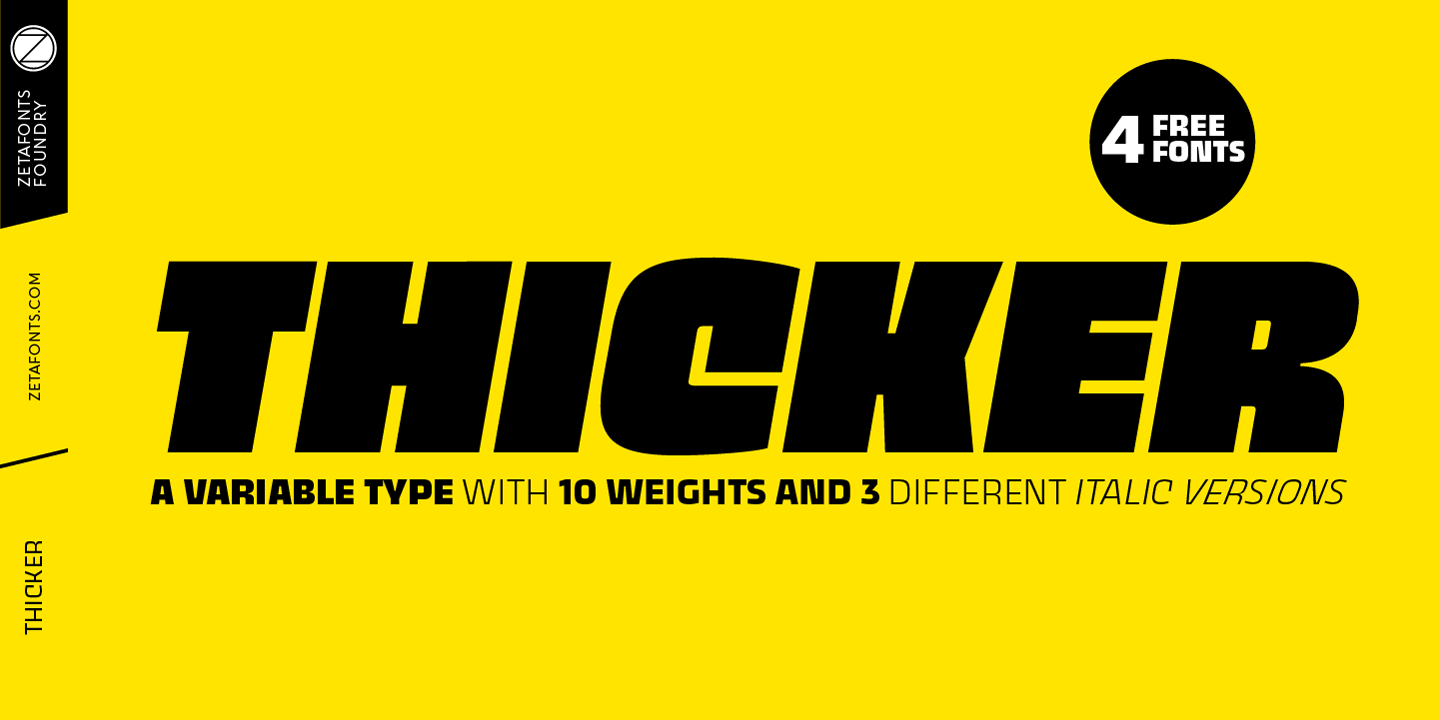
Thicker Font is perfect for bold statement branding, heavyweight boxing promotions, strong fitness gym signage, powerful construction company logos, robust industrial equipment labeling, commanding security services, solid foundation designs, and impactful designs that require maximum visual weight and uncompromising strength.
This font is exciting because it delivers overwhelming visual presence through its ultra-bold letterforms that command attention and refuse to be ignored with their substantial weight and commanding authority. The heavyweight character design embodies strength, reliability, and unwavering determination, making it perfect for brands that need to convey power, durability, and rock-solid dependability.
Thicker Font belongs to the ultra-bold display font family, featuring heavyweight styling and strength elements that enhance its effectiveness for industrial and power-focused design applications.
Whether you're creating heavyweight industry branding or powerful impact graphics, Thicker Font Free Download delivers maximum visual weight and commanding presence. This typeface represents the ultimate expression of typographic strength, combining overwhelming boldness with excellent functionality for high-impact applications. The font's substantial presence works magnificently in industrial communications, strength-based branding, and powerful marketing materials, providing superior readability while maintaining its heavyweight character that transforms any design with unstoppable force and creates memorable impactful experiences across all media platforms and strength-focused communications.